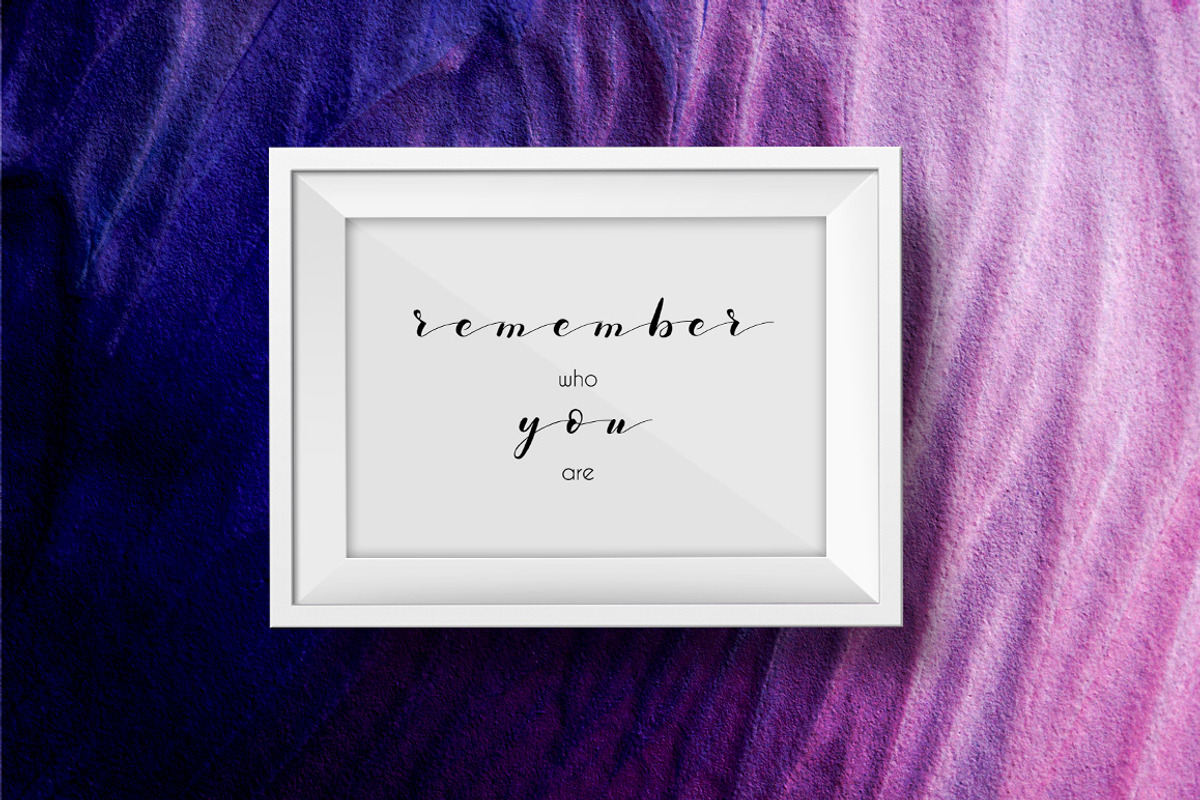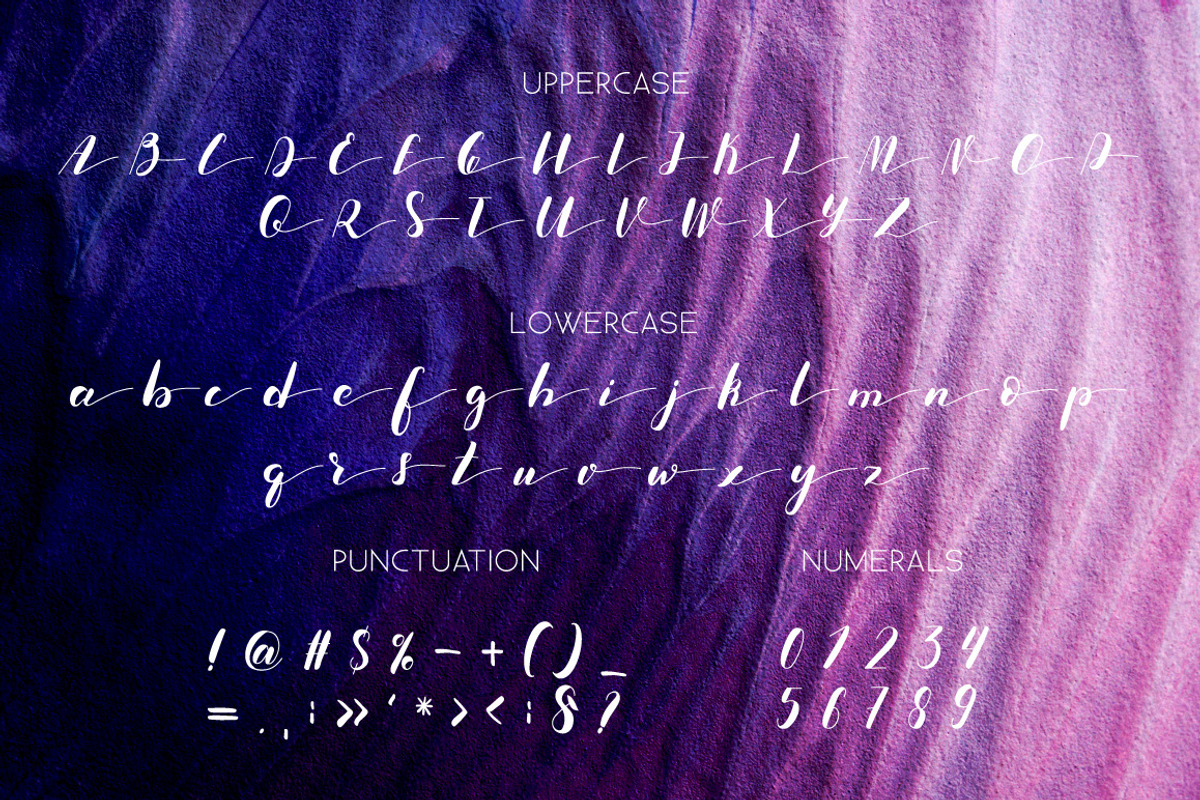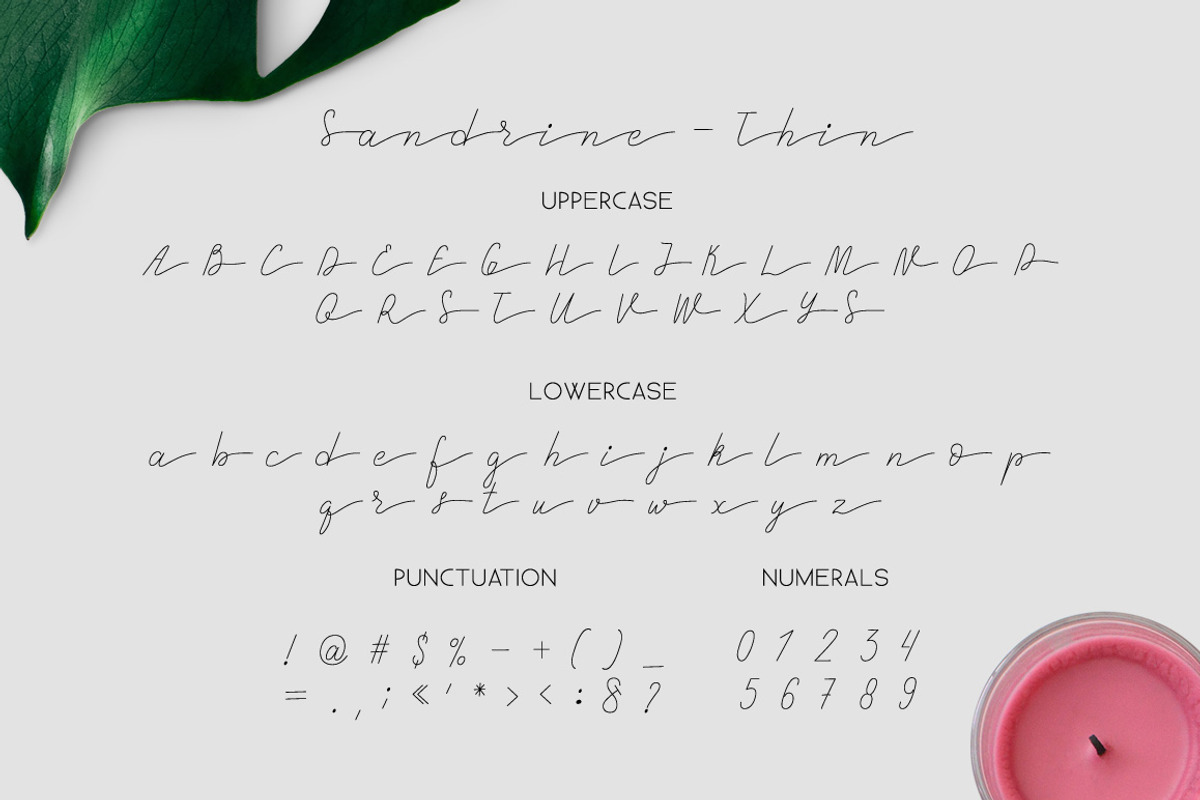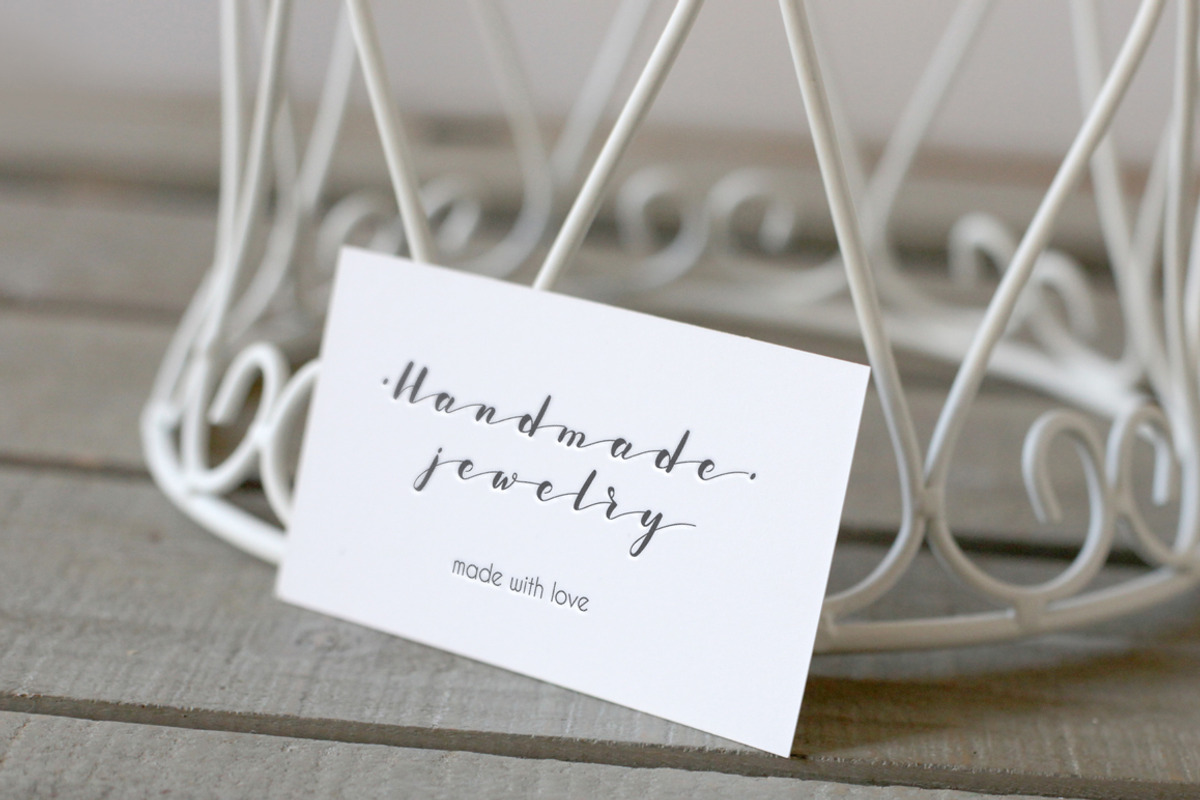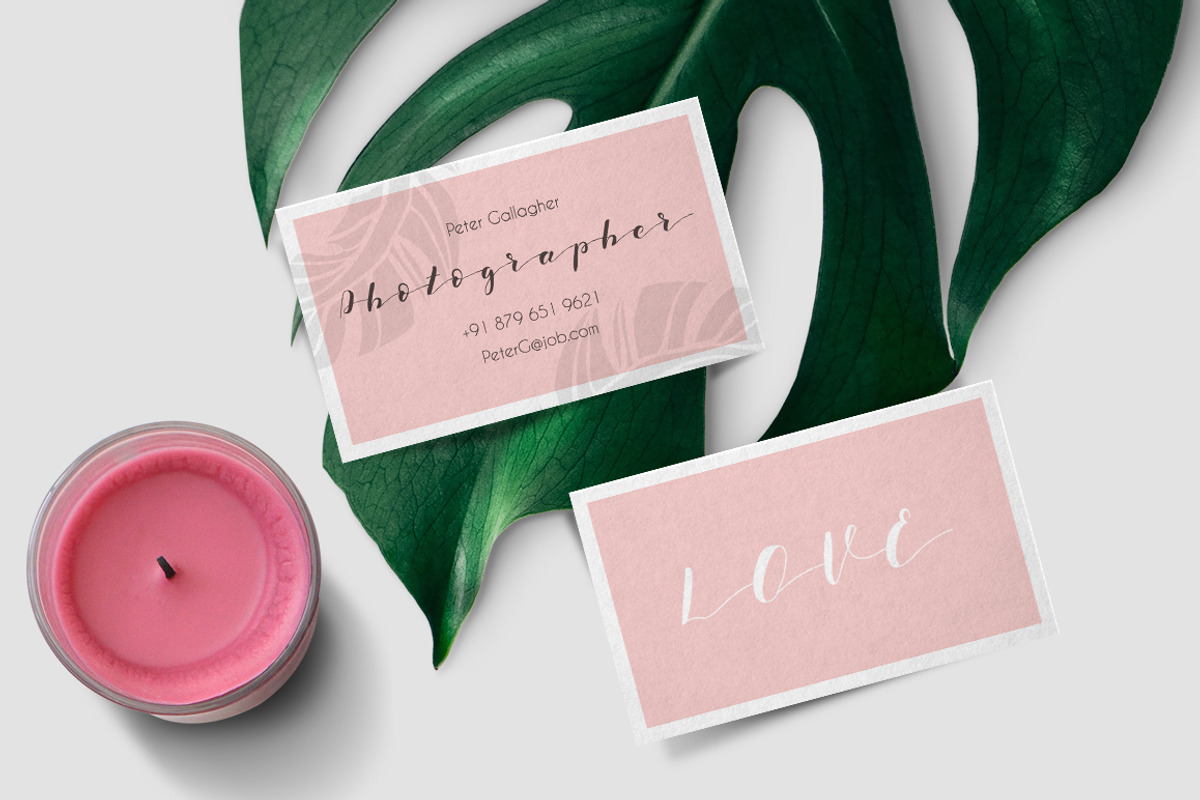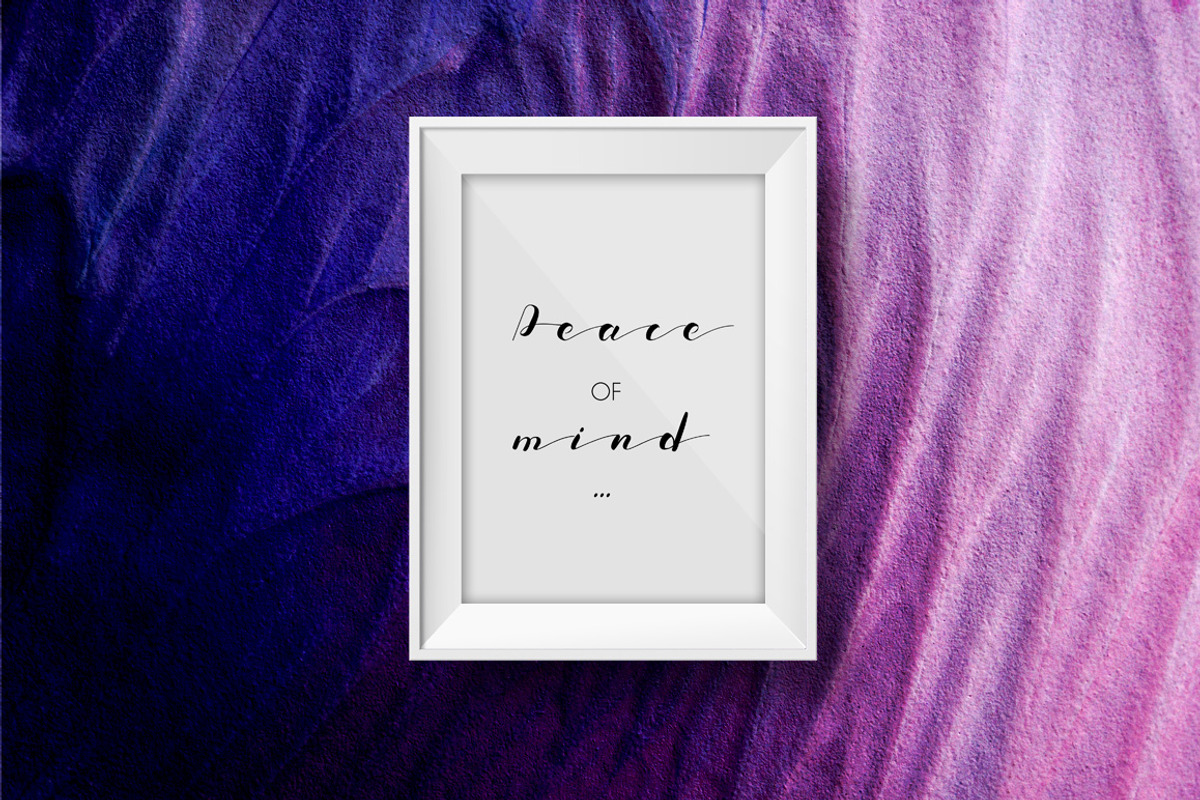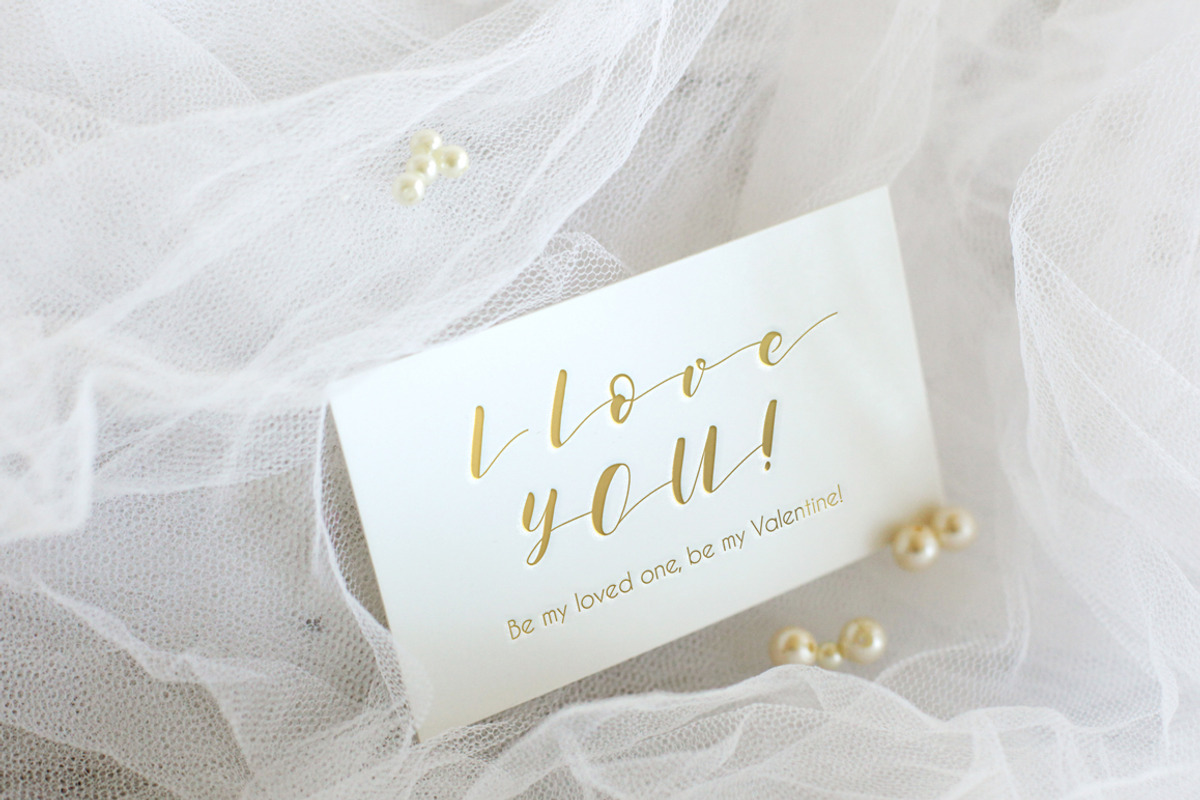
Sandrine Brush Font. Script.
Sandrine Brush Font. Script. by Wewhitelist is a font selected for branding, posters, packaging, typography.
Why Sandrine Brush Font. Script. is worth a look
Sandrine Brush Font. Script. by Wewhitelist fits naturally into Branding, posters, packaging, typography.